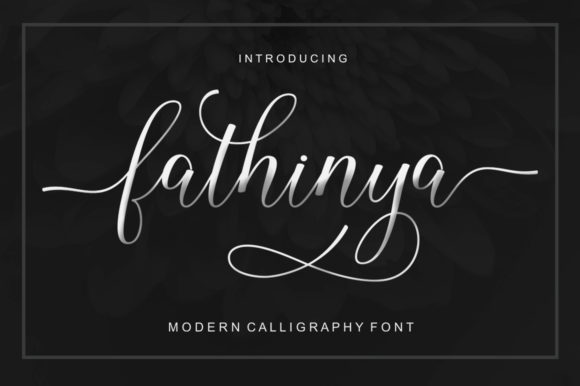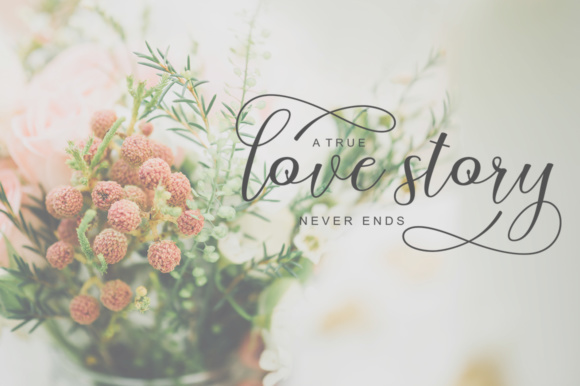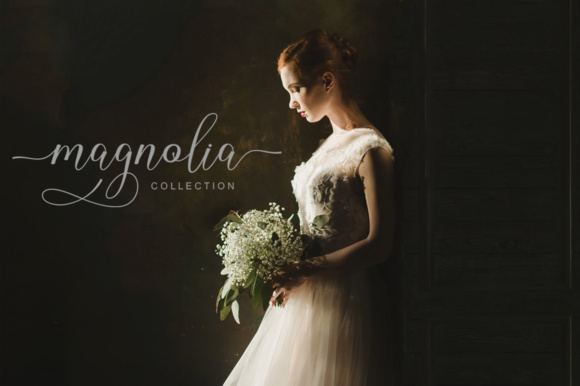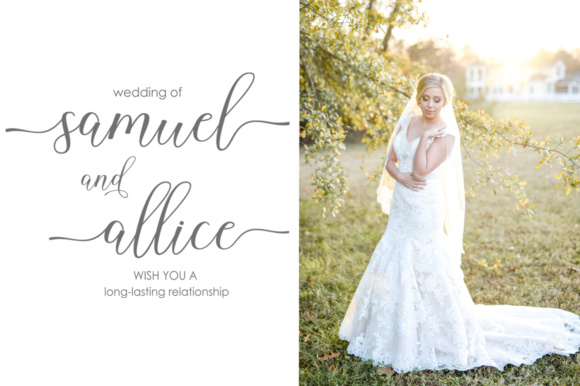
About Fathinya Font
The Fathinya is a calligraphy script font that comes with beautiful alternative characters. It is designed to bring elegance to your design. It’s a feminine, sensual, glamorous, simple and very readable typeface. The classic style is perfect to apply in various formal forms like invitations, labels, menus, logos, fashion, make up and much more!